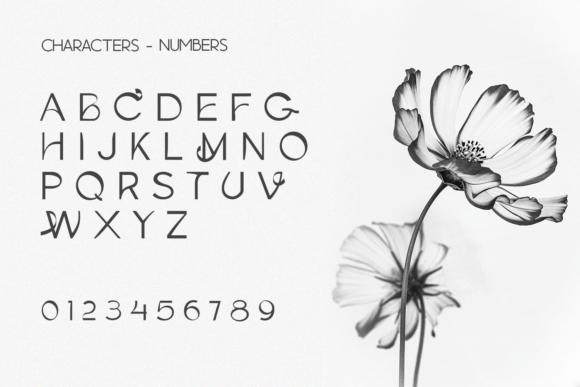
Brokendi Font: Elevate Your Designs with a Cool and Unique Display Font
In the world of typography, a font can make or break a design. As a designer or crafter, you’re constantly on the lookout for that perfect font to give your creations a unique edge. Look no further than Brokendi Font, a cool and unique display font that’s sure to become a staple in your font library.
What is Brokendi Font?
Brokendi is a thoughtfully crafted display font that’s designed to turn heads. With its highly detailed and neat design, this font is perfect for a wide range of projects, from branding and advertising to packaging and digital media. Whether you’re working on a bold and daring project or something more subtle and sophisticated, Brokendi Font has the versatility to adapt to any topic or theme.
Key Features of Brokendi Font
- Unique and Cool Design: Brokendi Font boasts a one-of-a-kind design that’s sure to grab attention. Its unique style sets it apart from more traditional fonts, making it perfect for designers who want to add a touch of personality to their work.
- Highly Detailed: With its intricate details and carefully crafted lettering, Brokendi Font is a true showstopper. Its high level of detail ensures that it will look great in a variety of applications, from large-scale signage to small digital displays.
- Versatile: Brokendi Font is incredibly versatile, making it suitable for a wide range of projects and applications. Whether you’re working on a logo, brochure, or website, this font is sure to enhance your design.
Why Choose Brokendi Font?
So why should you choose Brokendi Font for your next project? Here are just a few compelling reasons:
- Stand Out from the Crowd: With Brokendi Font, you can create designs that truly stand out from the crowd. Its unique and cool design ensures that your work will grab attention and leave a lasting impression.
- Enhance Your Brand: If you’re looking to elevate your brand, Brokendi Font can help. Its professional and sophisticated design makes it perfect for branding and advertising projects.
- Easy to Use: Despite its intricate design, Brokendi Font is surprisingly easy to use. Its clear and legible lettering ensures that it will be easy to read, even in smaller sizes.
How to Use Brokendi Font
So how can you start using Brokendi Font in your designs? Here are a few tips:
- Pair it with Other Fonts: Brokendi Font pairs well with a variety of other fonts, making it easy to create visually appealing combinations.
- Experiment with Sizes: Don’t be afraid to experiment with different sizes and scales when using Brokendi Font. Its intricate design looks great in both large and small sizes.
- Use it for Headlines and Titles: Brokendi Font is perfect for headlines and titles, where its unique and cool design can really shine.
In conclusion, Brokendi Font is a cool and unique display font that’s sure to become a valuable addition to your font library. With its highly detailed and neat design, this font has the potential to enhance any creation. Whether you’re a designer, crafter, or simply someone who appreciates great typography, Brokendi Font is definitely worth checking out.